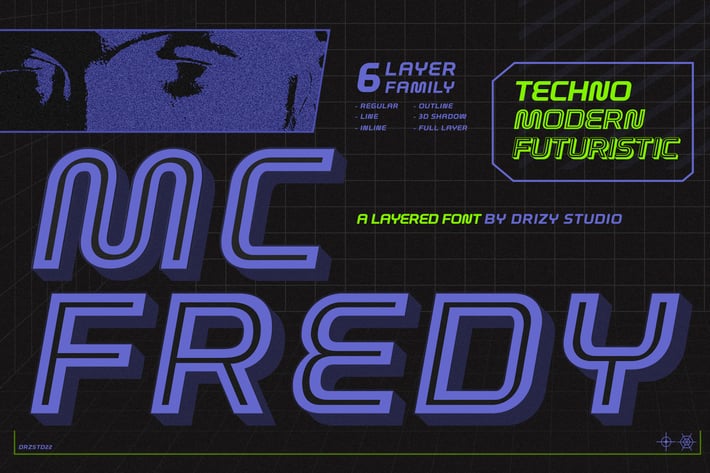
Mc Fredy - Layered Techno Font
drizy
Mc Fredy – Layered Techno Font
Mc Fredy is a Layered Techno Font from Drizy Studio. Offering all the styles you need for your projects.
Mc Fredy features:
Lowercase Only
Punctuation & Numbers
Ligatures